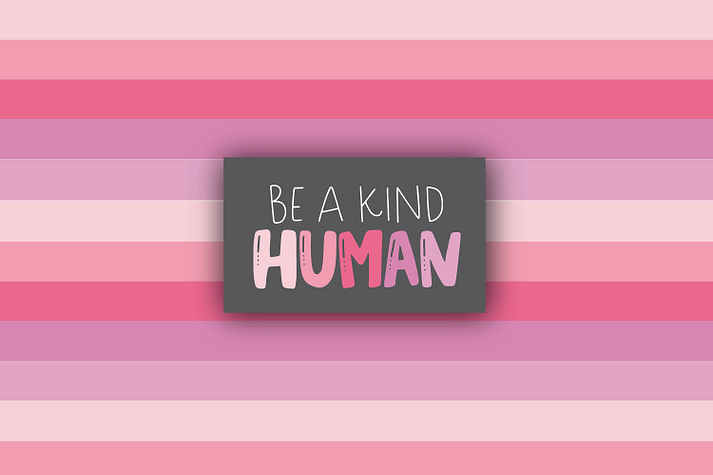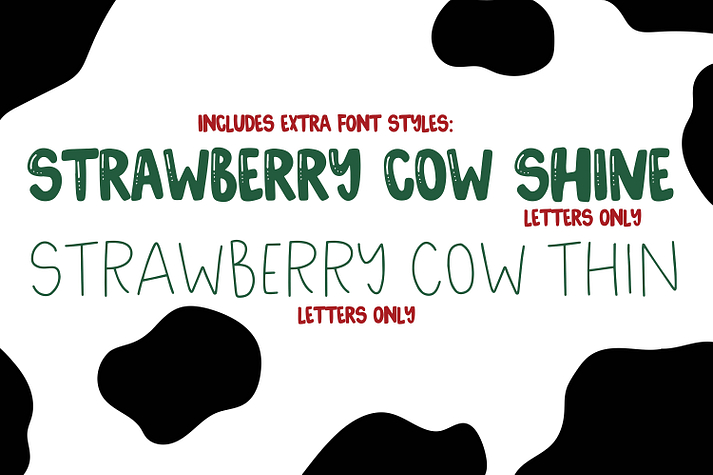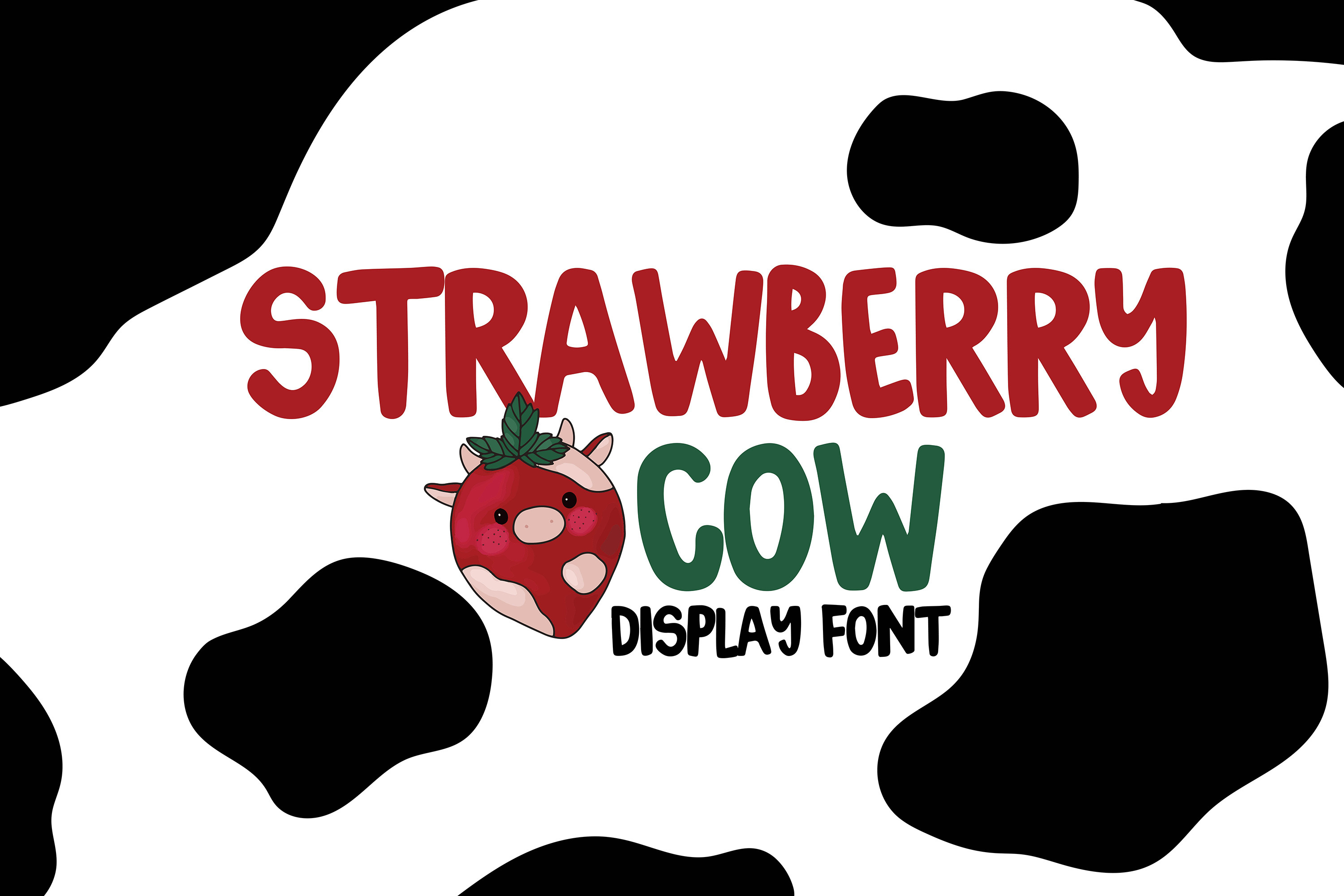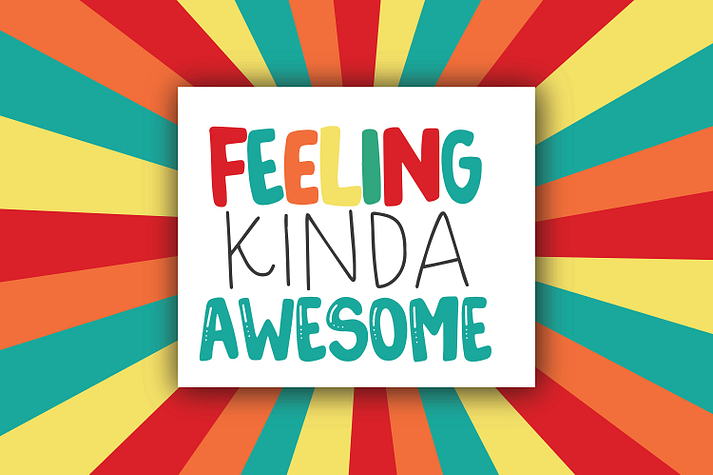
Strawberry Cow
Strawberry Cow is a hand display font family. This typeface has three styles and was published by On The Spot Studio.
strawberry cow is such a fun bubbly display font! it includes the solid version complete with numbers and punctuation! strawberry cow shine is a letters only display to add to your designs! strawberry cow thin is a moonlike accent letters only font!